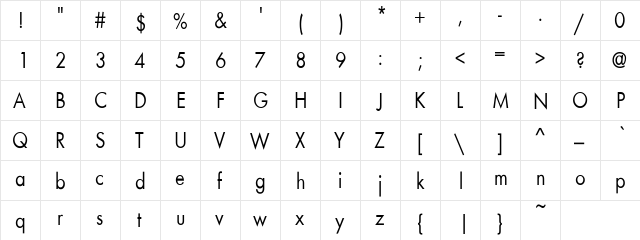
Sulley Condensed Regular Regular
Design Context for Sulley Condensed Regular Typeface
Sulley Condensed Regular takes a measured approach to typography — its balanced proportions and neutral character make it a reliable workhorse for both digital and print work. Its narrow stance lets it pack a punch even in space-constrained designs.